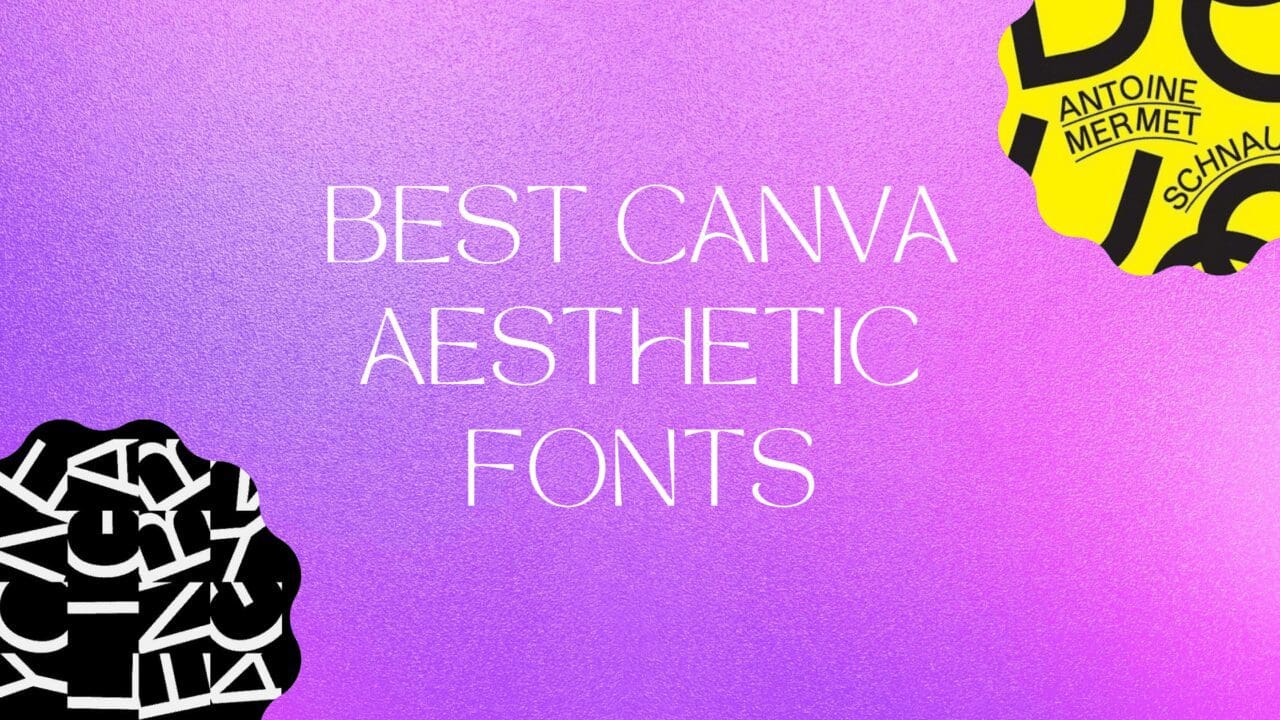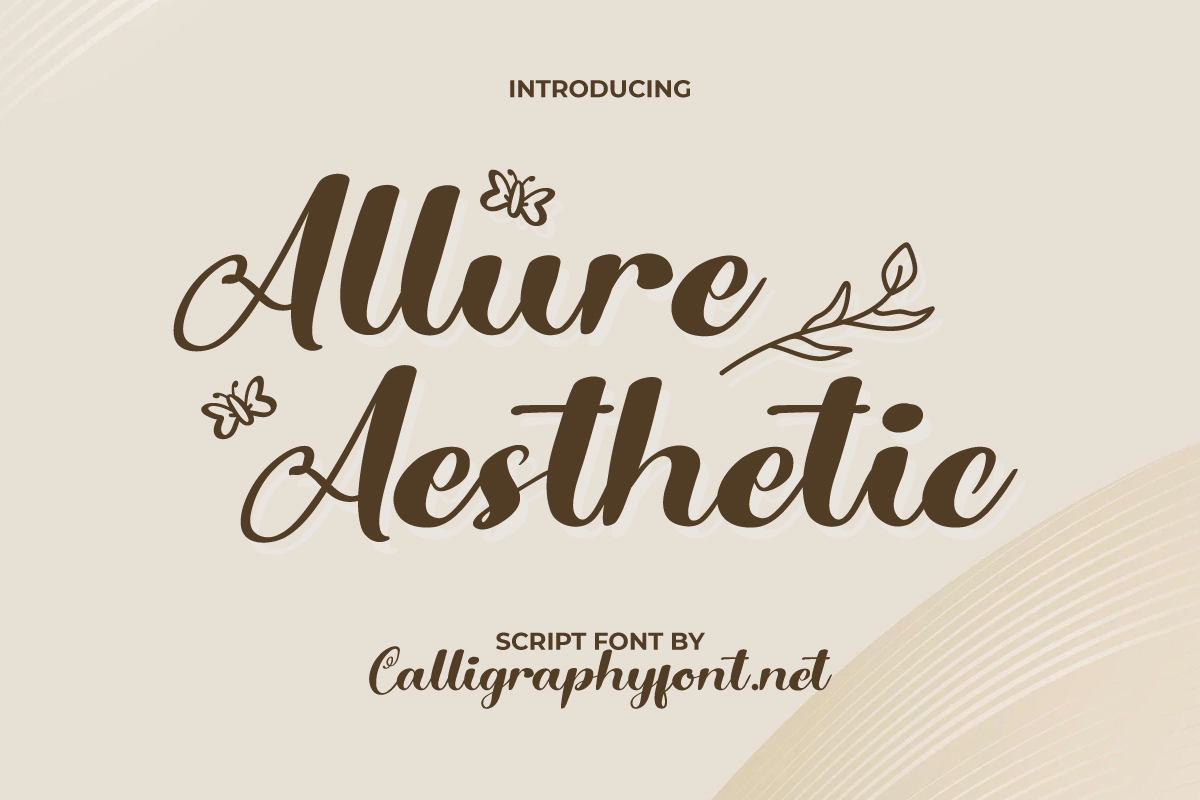
How To Get Aesthetic Fonts On Computer . An internet aesthetic, also simply referred to as an aesthetic, is a visual art style, sometimes accompanied by a fashion style, subculture, or. Search the adobe fonts library by name, foundry, designer, or keyword—or upload an image to match your type sample with visual search. Collection of fonts for aesthetic fonts. Paper plane by tigade std. Adobe fonts partners with the world’s leading type foundries. Use them on for tumblr posts, on instagram. Embrace elegance and modernity with our aesthetic fonts collection, designed to add a sleek and sophisticated touch to your projects. Turn your feelings and ideas into stunning digital works of art with these aesthetic fonts. Aesthetic fonts for tumblr, youtube, and instagram. Discover an expansive selection of free aesthetic fonts to elevate your design projects. Explore now and find the perfect style to express your creativity!
Collection of fonts for aesthetic fonts. Adobe fonts partners with the world’s leading type foundries. Search the adobe fonts library by name, foundry, designer, or keyword—or upload an image to match your type sample with visual search. Discover an expansive selection of free aesthetic fonts to elevate your design projects. An internet aesthetic, also simply referred to as an aesthetic, is a visual art style, sometimes accompanied by a fashion style, subculture, or. Embrace elegance and modernity with our aesthetic fonts collection, designed to add a sleek and sophisticated touch to your projects. Paper plane by tigade std. Use them on for tumblr posts, on instagram. Explore now and find the perfect style to express your creativity! Aesthetic fonts for tumblr, youtube, and instagram.
How To Get Aesthetic Fonts On Computer Collection of fonts for aesthetic fonts. Adobe fonts partners with the world’s leading type foundries. Embrace elegance and modernity with our aesthetic fonts collection, designed to add a sleek and sophisticated touch to your projects. Aesthetic fonts for tumblr, youtube, and instagram. Discover an expansive selection of free aesthetic fonts to elevate your design projects. Search the adobe fonts library by name, foundry, designer, or keyword—or upload an image to match your type sample with visual search. Use them on for tumblr posts, on instagram. Turn your feelings and ideas into stunning digital works of art with these aesthetic fonts. An internet aesthetic, also simply referred to as an aesthetic, is a visual art style, sometimes accompanied by a fashion style, subculture, or. Collection of fonts for aesthetic fonts. Explore now and find the perfect style to express your creativity! Paper plane by tigade std.
35+ Best Aesthetic Fonts in 2024 Design Shack How To Get Aesthetic Fonts On Computer Explore now and find the perfect style to express your creativity! Paper plane by tigade std. Embrace elegance and modernity with our aesthetic fonts collection, designed to add a sleek and sophisticated touch to your projects. Use them on for tumblr posts, on instagram. Adobe fonts partners with the world’s leading type foundries. An internet aesthetic, also simply referred to. How To Get Aesthetic Fonts On Computer.
35 Best Elegant Aesthetic fonts on Canva for EyeCatchy Designs (2024) How To Get Aesthetic Fonts On Computer Collection of fonts for aesthetic fonts. Explore now and find the perfect style to express your creativity! Embrace elegance and modernity with our aesthetic fonts collection, designed to add a sleek and sophisticated touch to your projects. Paper plane by tigade std. An internet aesthetic, also simply referred to as an aesthetic, is a visual art style, sometimes accompanied by. How To Get Aesthetic Fonts On Computer.
77+ Beautiful How To Type Aesthetic Font Ideas ella nairn How To Get Aesthetic Fonts On Computer Explore now and find the perfect style to express your creativity! An internet aesthetic, also simply referred to as an aesthetic, is a visual art style, sometimes accompanied by a fashion style, subculture, or. Search the adobe fonts library by name, foundry, designer, or keyword—or upload an image to match your type sample with visual search. Discover an expansive selection. How To Get Aesthetic Fonts On Computer.
35 Best Elegant Aesthetic fonts on Canva for EyeCatchy Designs How To Get Aesthetic Fonts On Computer Use them on for tumblr posts, on instagram. Paper plane by tigade std. An internet aesthetic, also simply referred to as an aesthetic, is a visual art style, sometimes accompanied by a fashion style, subculture, or. Aesthetic fonts for tumblr, youtube, and instagram. Collection of fonts for aesthetic fonts. Embrace elegance and modernity with our aesthetic fonts collection, designed to. How To Get Aesthetic Fonts On Computer.
5+ How To Get The Aesthetic Font Games Photo SIte How To Get Aesthetic Fonts On Computer Paper plane by tigade std. Search the adobe fonts library by name, foundry, designer, or keyword—or upload an image to match your type sample with visual search. Discover an expansive selection of free aesthetic fonts to elevate your design projects. Adobe fonts partners with the world’s leading type foundries. Turn your feelings and ideas into stunning digital works of art. How To Get Aesthetic Fonts On Computer.